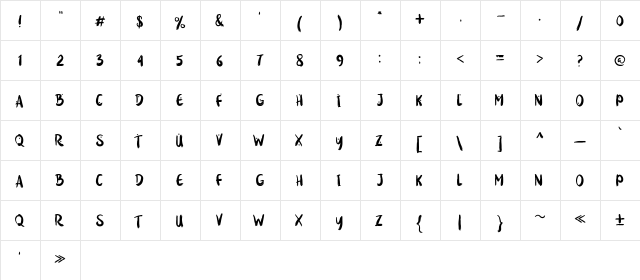
Loveya Brush Regular Font Preview
Loveya Brush Regular
Loveya Brush Regular Font Details
Design Context for Loveya Brush Typeface
Loveya Brush flows with the natural rhythm of handwritten lettering, making it ideal for designs that call for warmth and personal expression.